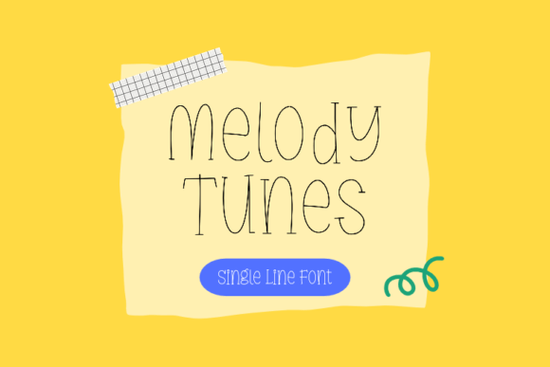
If you’ve been searching for a handwritten font that feels like it was drawn with a smile, Melody Tunes Font might be exactly what your next project needs. It’s not stiff or overly polished instead, it leans into its imperfections with playful curves and slightly uneven letterforms that give it warmth and character. Whether you’re designing greeting cards, kids’ book covers, or custom packaging, this font brings a cheerful, handmade vibe without looking sloppy.
What kind of projects work best with Melody Tunes?
This font shines when the goal is to feel personal, fun, or lighthearted. Think birthday invites with doodle-style borders, labels for homemade jams, or storybook titles where the letters almost seem to dance off the page. It’s also great for print-on-demand sellers who want their mugs, totes, or t-shirts to stand out with something more expressive than standard script fonts.
You might also consider pairing it with cleaner sans-serifs for contrast letting Melody Tunes handle headlines while a simple body font keeps things readable. If you liked the bouncy energy of Barbiedol or the casual flow of Dating Month, you’ll probably feel right at home with Melody Tunes.
Is it easy to use for non-designers?
One thing to note: because the letters are intentionally irregular, avoid using it in all caps for long phrases. It’s meant to be read as a display font short bursts of charm, not paragraphs of prose. That said, the lowercase set has plenty of bounce and variation to keep things interesting without sacrificing legibility.
How does it compare to other whimsical script fonts?
If you’ve used Valencia or Brittany before, you know those fonts lean toward elegance with soft, flowing strokes. Melody Tunes goes the opposite direction it’s less “calligraphy class” and more “kid with glitter pens having the time of their life.” That doesn’t make it less professional; it just serves a different mood. Use Valencia for wedding invites, Brittany for boutique branding, and Melody Tunes when you want to spark joy or laughter.
It also includes basic punctuation and numerals styled to match so your price tags, dates, or hashtags won’t feel out of place. And yes, there are alternates and ligatures tucked in for those who want to dig deeper and customize letter pairings.
Any tips for getting the most out of this font?
- Scale it big. Tiny text loses the charm. Let those quirky loops and tails breathe.
- Pair with solid backgrounds. Busy patterns can compete with the font’s texture. Try it over pastels or clean white space.
- Use sparingly. One headline, one phrase, one word sometimes that’s all you need to set the tone.
- Experiment with color. Bright pinks, mint greens, or even black on kraft paper this font adapts well.
And if you’re ever stuck on how to style it, browse through mockups or templates in the same category. Seeing how others use Melody Tunes can spark ideas you hadn’t considered like using it for chalkboard signs, recipe cards, or even animated social media quotes.